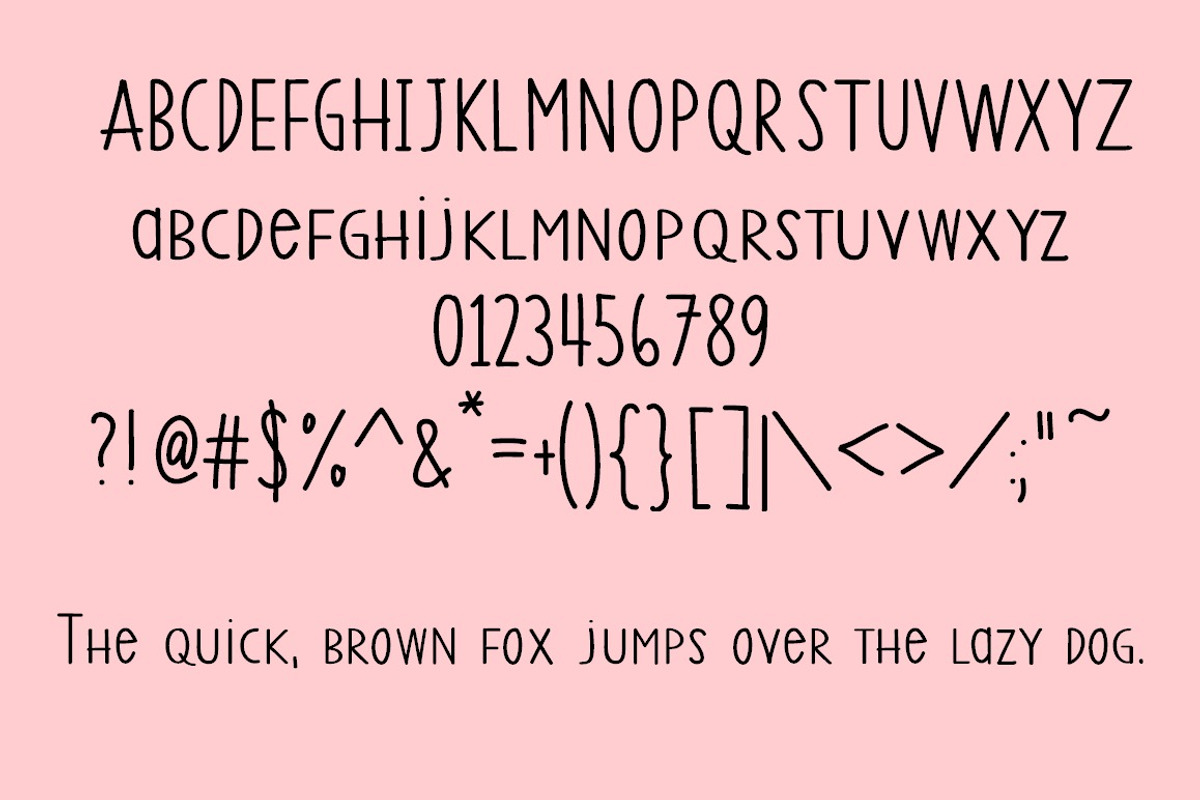
Vanilla Gelato- Handwritten Font
Vanilla Gelato- Handwritten Font by Sabrina Schleiger Design is a font selected for branding, posters, packaging, typography.
- It includes Basic Latin & Latin Extensions to support English, Spanish, French & German.
Why Vanilla Gelato- Handwritten Font is worth a look
Vanilla Gelato- Handwritten Font by Sabrina Schleiger Design fits naturally into Branding, posters, packaging, typography.